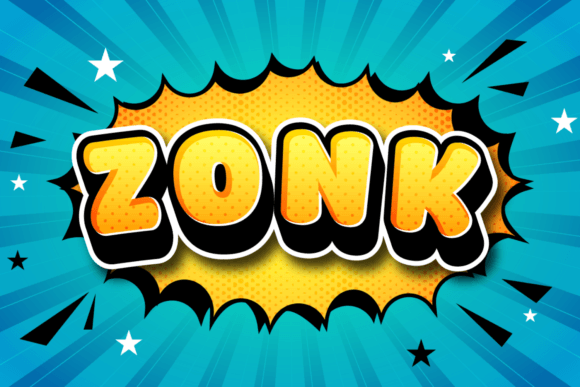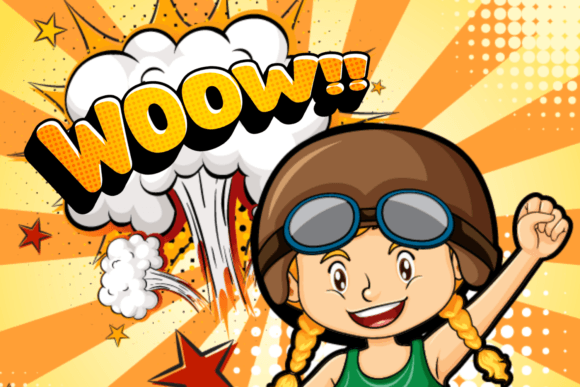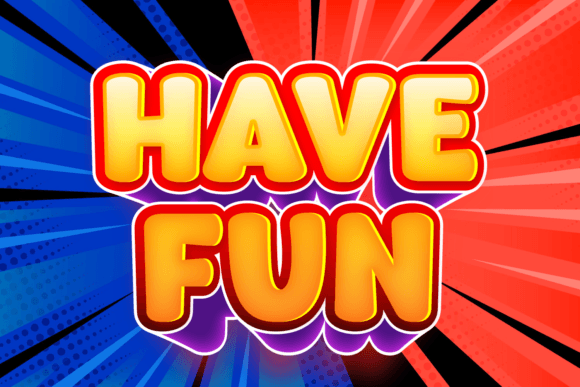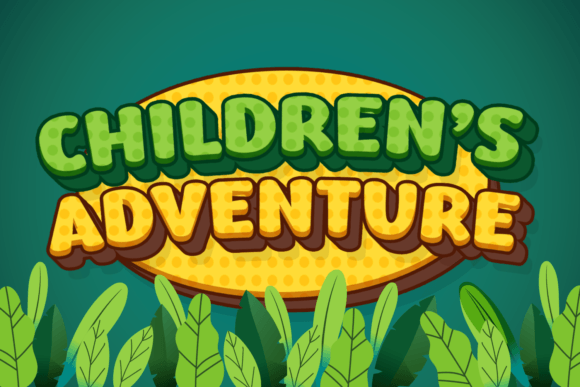
The Joy of Giant Comic Font: A Designer’s Delight
I’ll never forget the time I was working on a project for a kids’ clothing brand, and I was struggling to find the perfect font to match their playful and fun vibe. The client wanted something that would appeal to both kids and parents, and I was determined to deliver. That’s when I stumbled upon the Giant Comic font, and it was love at first sight! 😍
This charming display font has been a game-changer for my designs, and I’m excited to share its awesomeness with you. In this article, we’ll dive into the world of Giant Comic, exploring its features, uses, and some helpful tips and tricks.
A Personal Review: What I Love About Giant Comic
So, what makes Giant Comic so special? Here are some of my favorite things about this delightful font:
- ✨ Fun and playful vibe: Giant Comic has a cartoon-like feel that’s perfect for creating joyful and memorable typography.
- ✅ Thick and charming characters: The font features thick, chunky characters that are sure to grab attention.
- 💕 Perfect for kids’ designs: The font’s playful and child-friendly nature makes it ideal for kids’ t-shirts, posters, cards, and more.
While Giant Comic is an amazing font, there are a few things to keep in mind:
- 🤔 Limited use cases: Due to its bold and playful nature, Giant Comic might not be the best fit for more formal or professional designs.
- ⚠️ Legibility at small sizes: As with many display fonts, Giant Comic can become less legible at smaller sizes, so be sure to use it at a large enough size to ensure readability.
The Backstory Behind Giant Comic
The story behind Giant Comic is one of creativity and inspiration. While the font’s actual origins are unclear, it’s likely that it was designed with the intention of creating a fun and playful font for kids’ designs and creative projects. The font’s chunky, cartoon-like characters are reminiscent of classic comic books and children’s illustrations, making it a perfect fit for designers looking to add a bit of whimsy to their work.
| What is Giant Comic font? | Giant Comic is a fun and chubby display font with a cartoon-like feel, perfect for creating joyful and memorable typography. |
| What can I use Giant Comic for? | Giant Comic is perfect for kids’ t-shirts, child-friendly designs, posters, cards, headlines, titles, book covers, apparel, and more. |